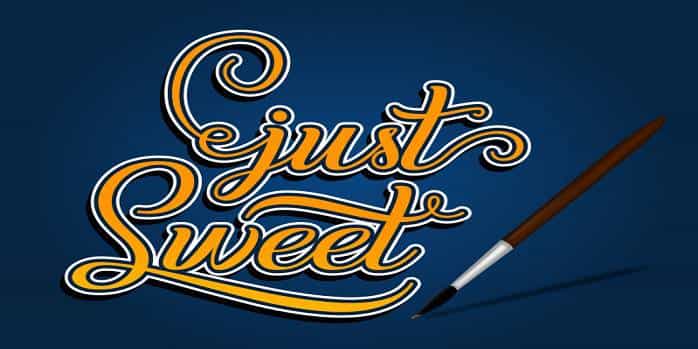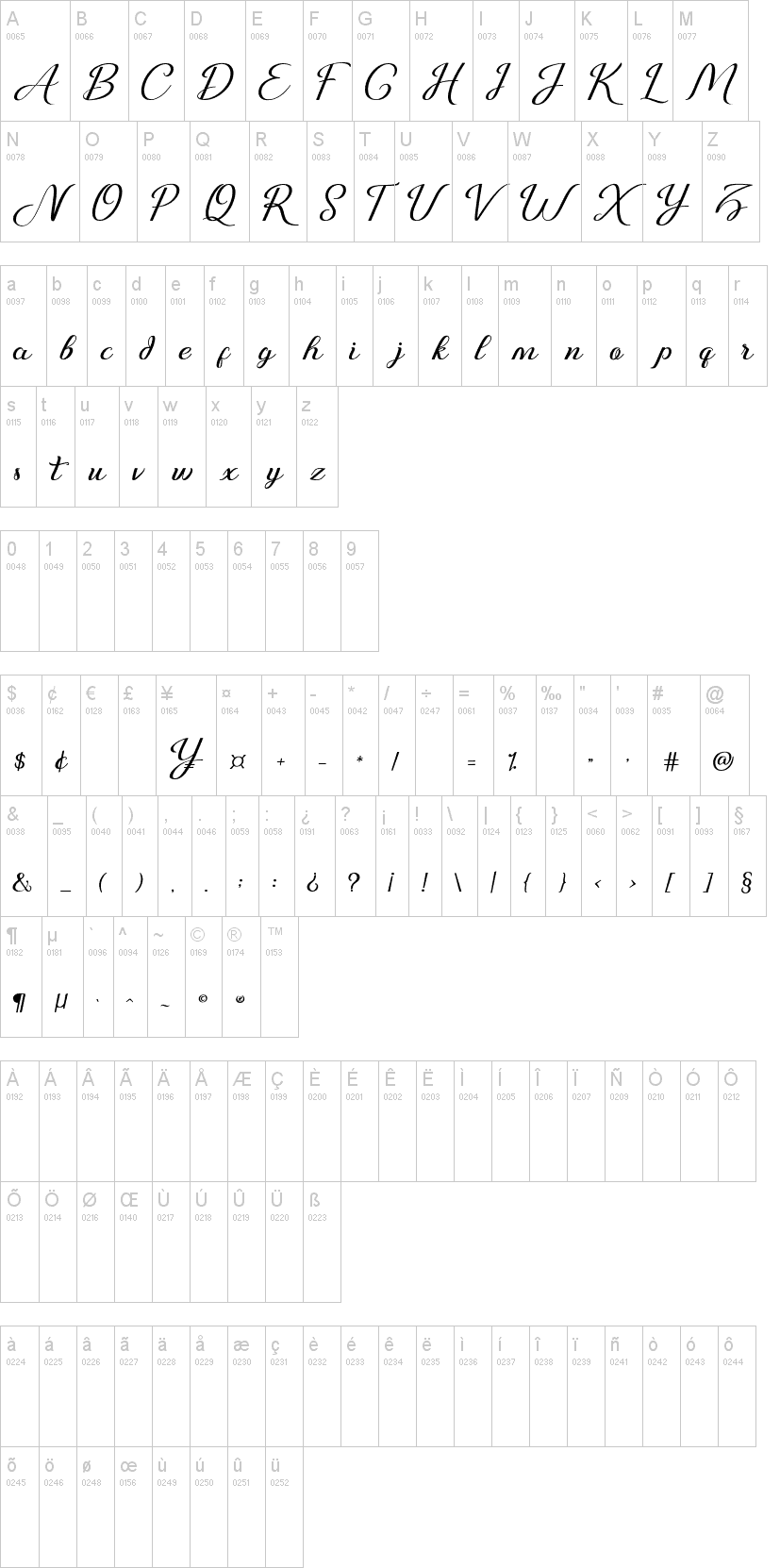
Just Sweet – this is a young and elegant font that is based on handwritten calligraphy. Some of the attributes include the dancing baseline and the decorative characters to ensure you have a fabulous typeface to rule your most cherished displays and headlines.